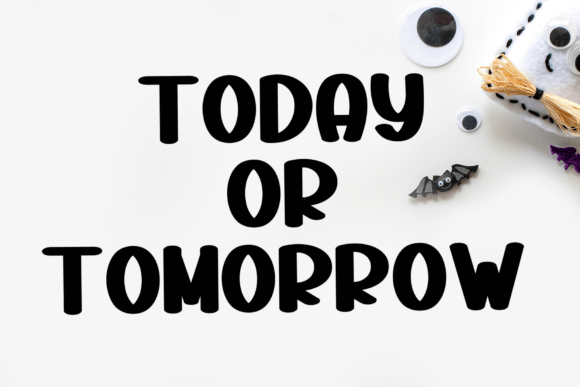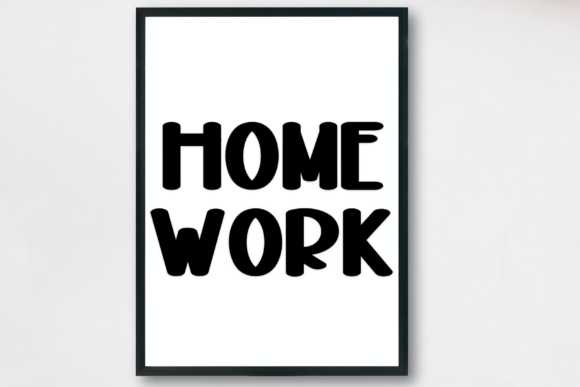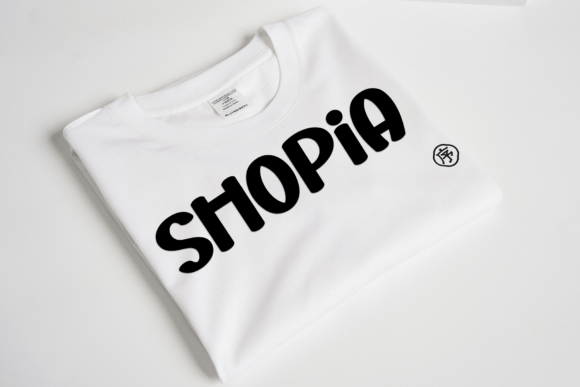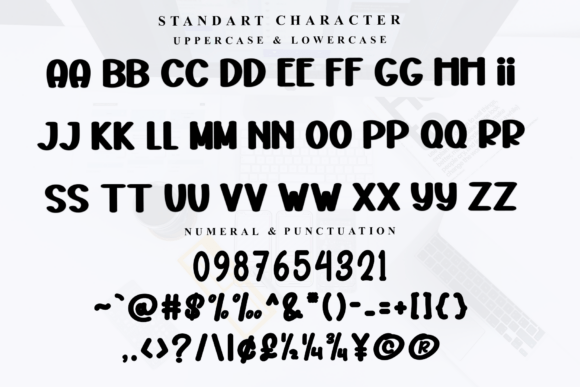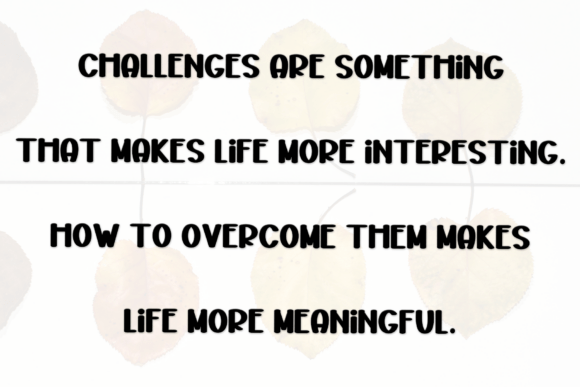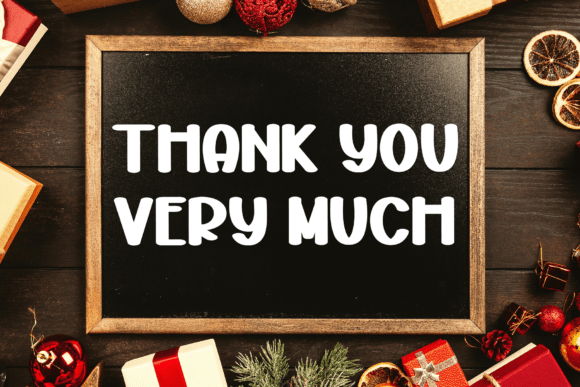
Introducing Chubby Vintage Font: A Unique and Versatile Typeface for Creative Projects
In the world of typography, a font can make or break a design. It’s the perfect blend of style, elegance, and personality that can elevate a project from ordinary to extraordinary. If you’re a designer, crafter, or creative looking for a font that can add a touch of sophistication and whimsy to your work, look no further than Chubby Vintage Font. This beautiful and eye-catching font is designed with a soft, unique touch that is sure to capture the attention of your audience.
The Distinctive Character of Chubby Vintage Font
Chubby Vintage Font boasts distinctive strokes that give it a special character, making it meaningful and versatile for future use. Its unique design ensures that your projects stand out from the crowd, while its soft and natural style makes it perfect for a wide range of applications. Whether you’re working on a design project, craft, or other creative work, this font is sure to enhance your designs and make them appealing to many audiences across different artistic and creative fields.
Key Features of Chubby Vintage Font
- Unique and Eye-Catching Design: Chubby Vintage Font features a soft, unique touch that sets it apart from other fonts.
- Versatile and Meaningful: Its distinctive strokes give it a special character, making it perfect for a wide range of creative projects.
- Natural Font Style: Chubby Vintage Font features a natural font style that is ideal for a wide range of products.
- Variety of Characters: This font comes with a variety of characters, making it perfect for design projects, crafts, and other creative works.
Chubby Vintage Font is perfect for designers and crafters who want to add a touch of elegance and whimsy to their projects. Its unique design and versatility make it an ideal choice for a wide range of creative projects, including:
- Design Projects: Use Chubby Vintage Font to create stunning designs for brochures, posters, and other marketing materials.
- Crafts: Add a personal touch to your crafts, such as handmade cards, gift tags, and other DIY projects.
- Digital Products: Use this font to create visually appealing digital products, such as ebooks, printables, and other digital downloads.
Why Choose Chubby Vintage Font?
With so many fonts available, why choose Chubby Vintage Font? Here are just a few reasons why this font stands out:
- Unique Design: Chubby Vintage Font features a unique design that sets it apart from other fonts.
- Versatility: This font is versatile and can be used for a wide range of creative projects.
In conclusion, Chubby Vintage Font is a beautiful and eye-catching font that is perfect for designers, crafters, and creatives looking for a unique and versatile typeface for their projects. Its distinctive strokes, natural font style, and variety of characters make it an ideal choice for a wide range of creative projects. With its ease of use and compatibility with various applications, Chubby Vintage Font is sure to enhance your designs and make them appealing to many audiences across different artistic and creative fields.